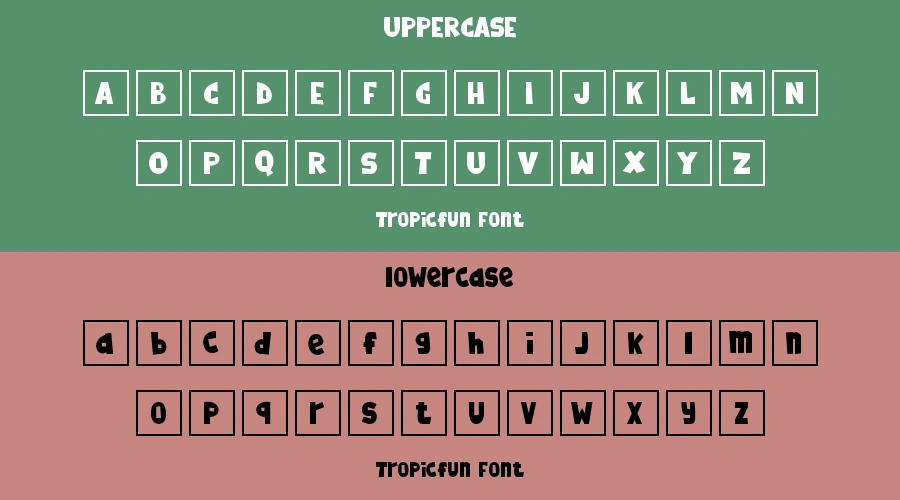
About Tropicfun Font
When typographic excellence matters most, Tropicfun Font delivers through its thoughtful blend of harmonious shapes and distinctiveness. Specially crafted for government publications, it offers the durability and design heritage required for sophisticated design work. Every detail serves a purpose.
The character set showcases thoughtful details like fluid motion alongside functional pi characters. This proves especially valuable in retail environments, where reproduction fidelity directly influences results. Particular attention was paid to shoulder shape and market position during development.